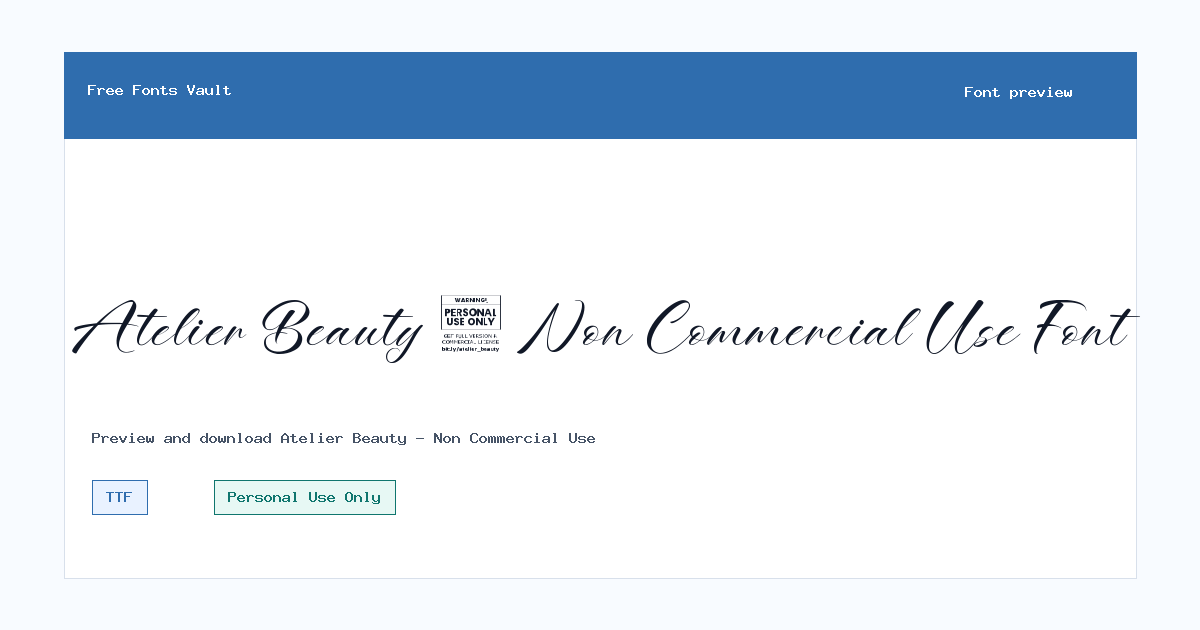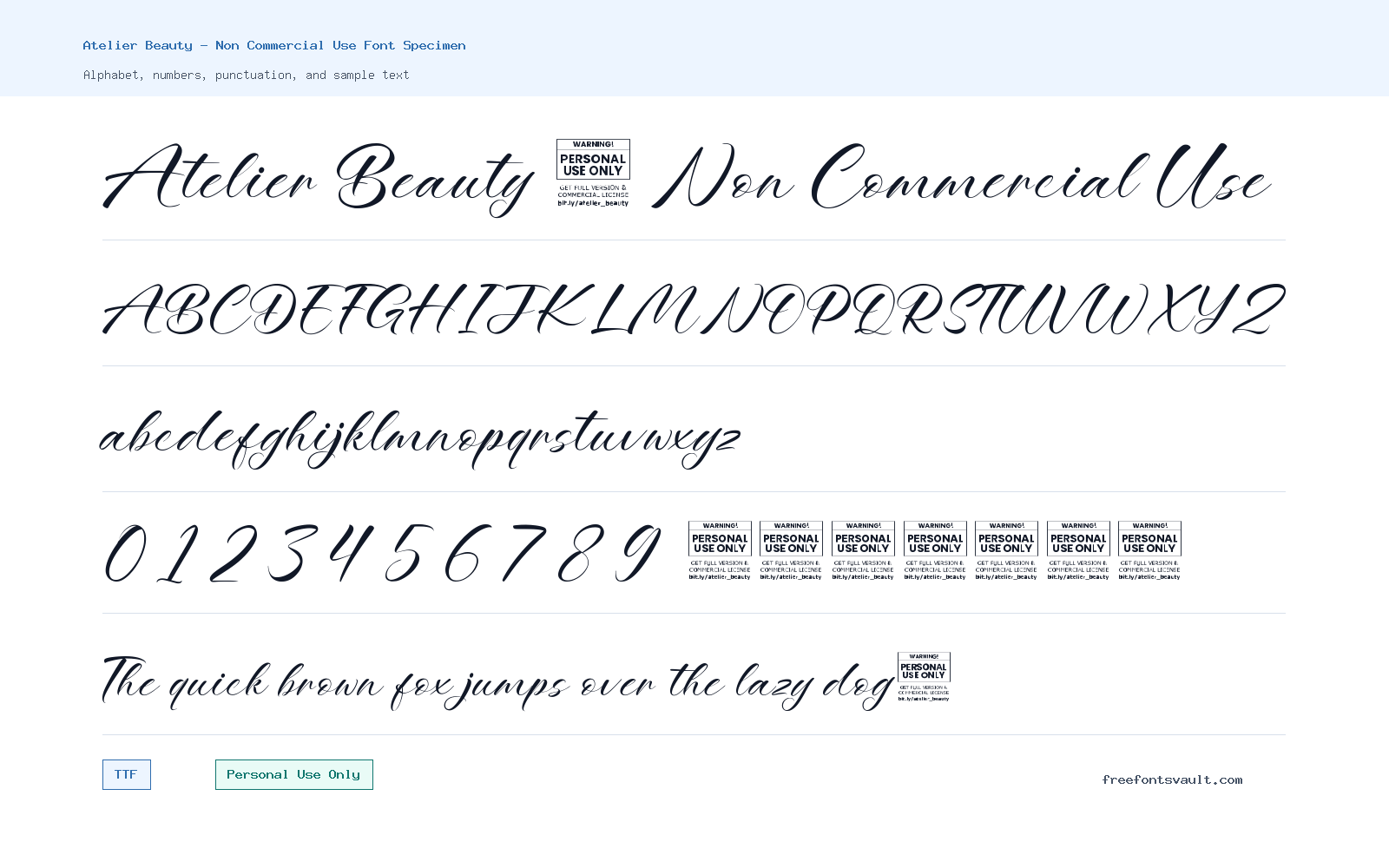
Atelier Beauty - Non Commercial Use
Atelier Beauty – Non Commercial Use font.
Atelier Beauty – Non Commercial Use is a calligraphy script font made for decorative text, short headings, and elegant personal design projects. Its regular TTF file can be used for previewing names, titles, invitations, and other display text where a handwritten look is the main focus.
About Atelier Beauty – Non Commercial Use
Atelier Beauty is best treated as a display script rather than a long-reading text font. The name and license description point to a beauty-style calligraphy script, so it fits projects that need a soft, personal, and decorative tone. Try it with short words first, because script fonts often show their character most clearly in names, initials, greetings, and compact phrases.
Use the preview area to test the exact text you plan to design. Look closely at letter spacing, capital letters, and repeated characters, especially if you are setting a name, brand-style wordmark, or invitation title. If a phrase becomes hard to read, keep Atelier Beauty for the main accent and pair it with a simple sans serif or serif font for dates, addresses, body copy, and instructions.
- Calligraphy script style suited to decorative display text and short phrases.
- Personal invitations, greeting cards, quotes, and name-based layouts.
- Beauty, fashion, craft, or lifestyle mockups made for practice or personal sharing.
- Headings, signatures, social graphics, and other short decorative text blocks.
What kind of projects does this font suit?
It suits personal decorative work such as invitations, names, greeting cards, quote graphics, and short title designs.
Atelier Beauty works best when the surrounding layout stays light: let the letters carry invitations, boutique headers, logo mockups, labels, and social graphics without crowding them with heavy borders or busy backgrounds. Test short words first, then adjust spacing if the swashes start to touch.